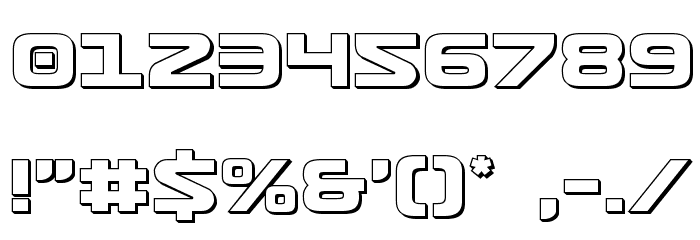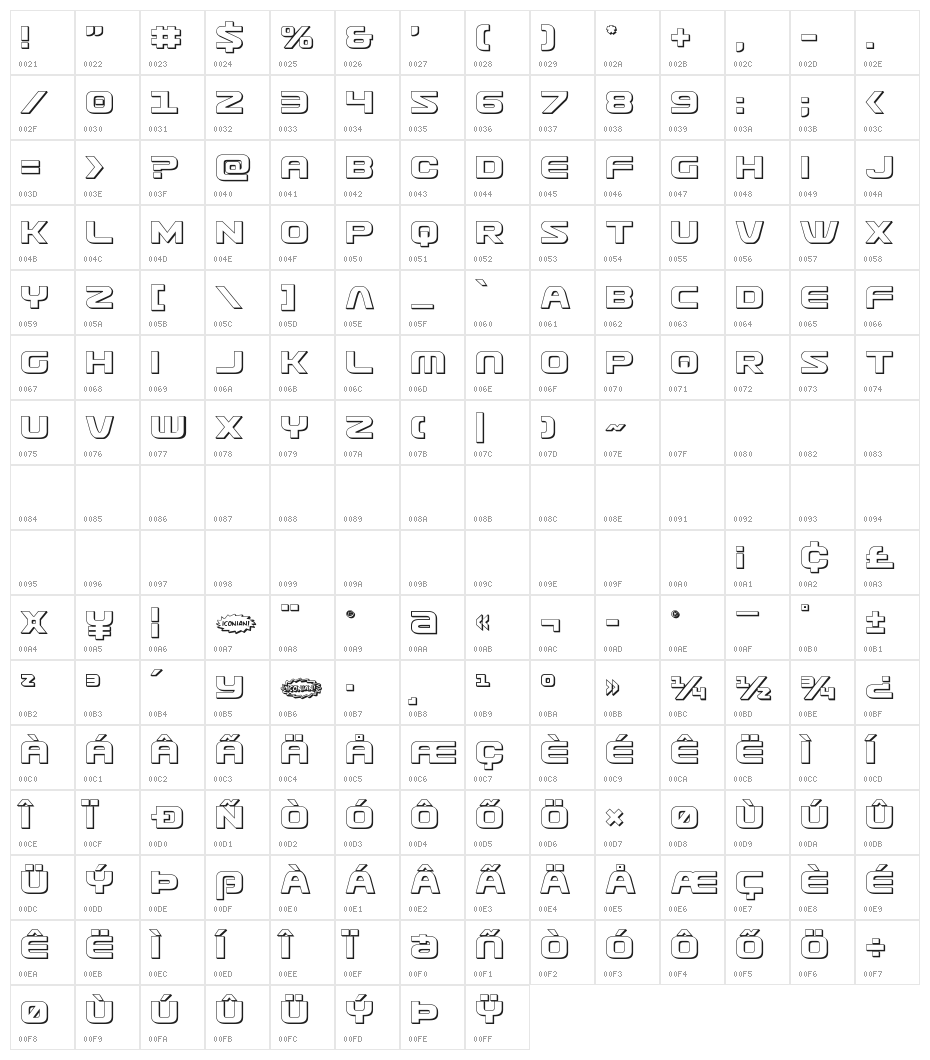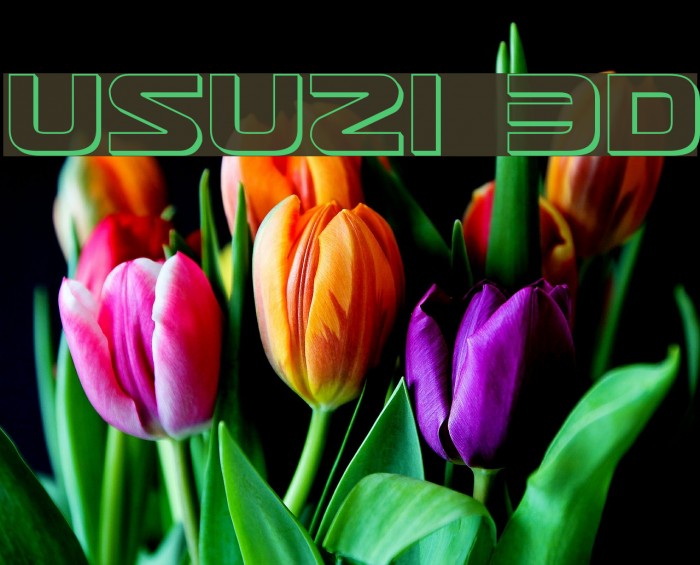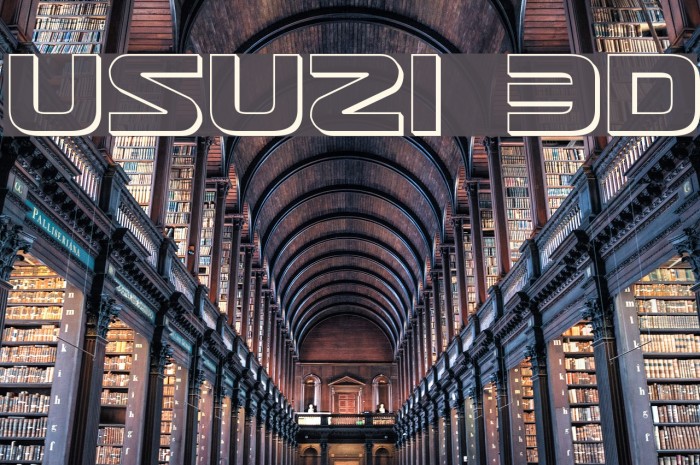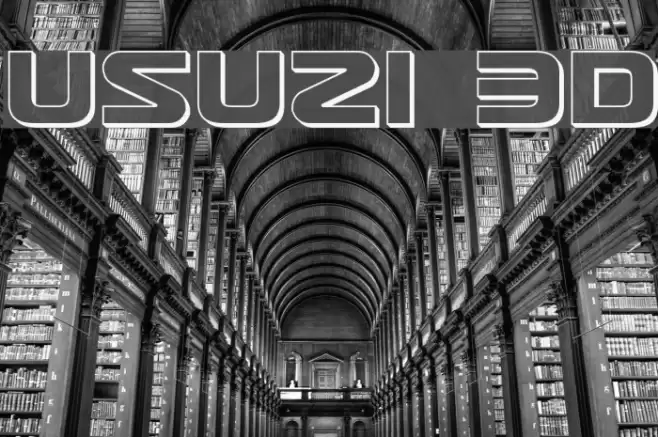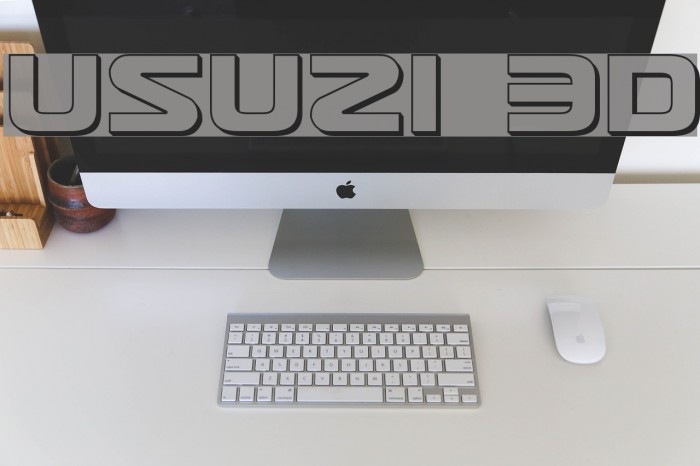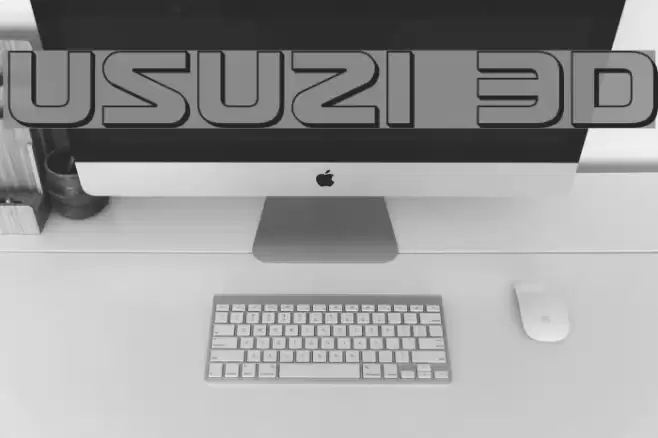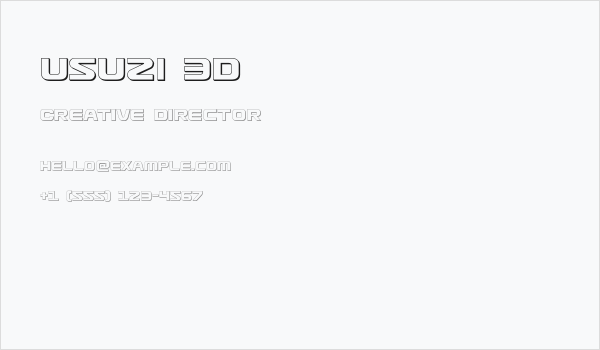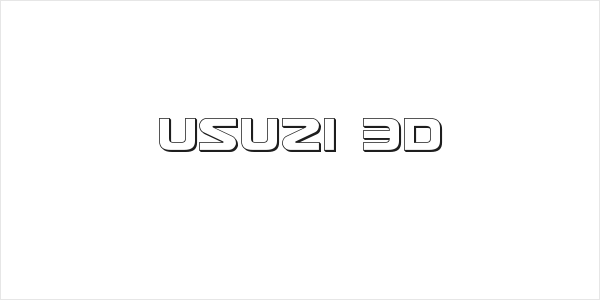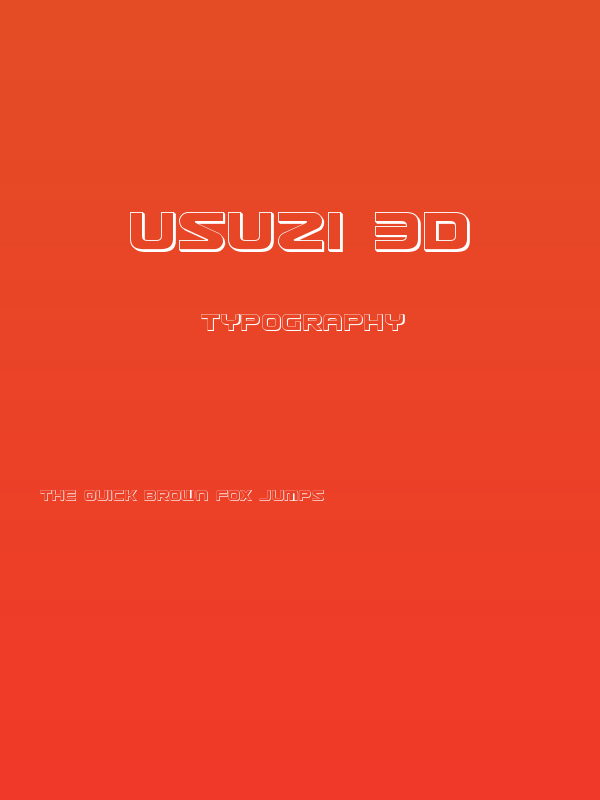
Usuzi 3D Font
Usuzi 3D Description
This font features a bold, three-dimensional outline style that gives it a futuristic and dynamic appearance. The characters are uppercase and lowercase letters, along with numbers and special symbols, all designed with a consistent geometric structure. The lines are clean and sharp, creating a sense of depth and movement. The font's distinct style makes it ideal for projects that require a modern and eye-catching look. Its unique design is suitable for digital and print media, where a strong visual impact is desired.
| Proposed Projects | Ideal for video game titles, tech branding, futuristic posters, and digital media. |